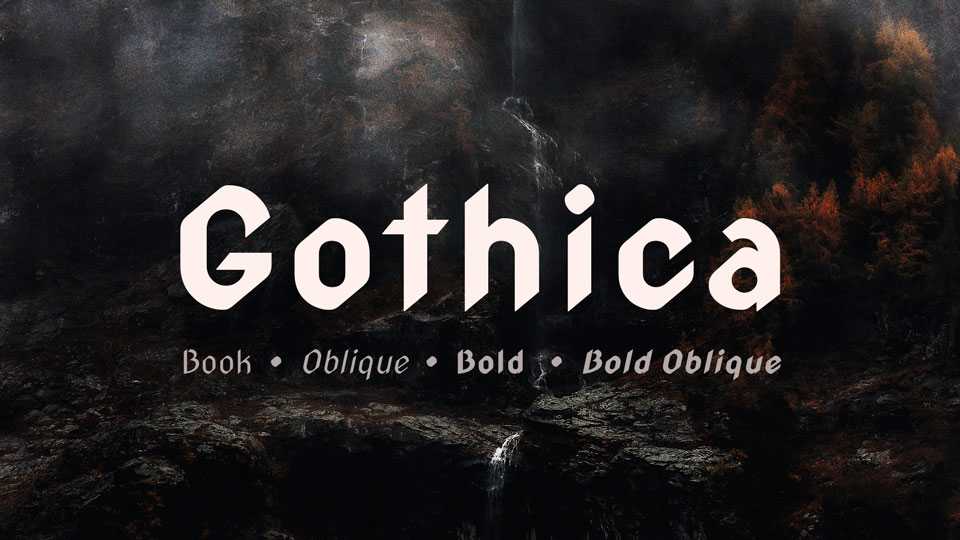
Download Gothica typeface, a font family in two weights with matched Obliques which based on Nova Cut and all the Nova. Gothica font was used for the stone carving works.
Designer: Wojciech Kalinowski